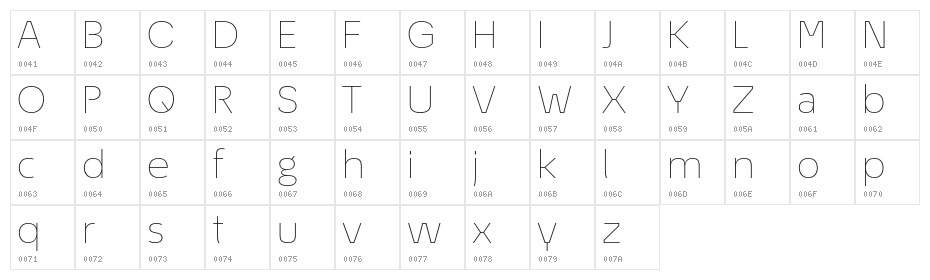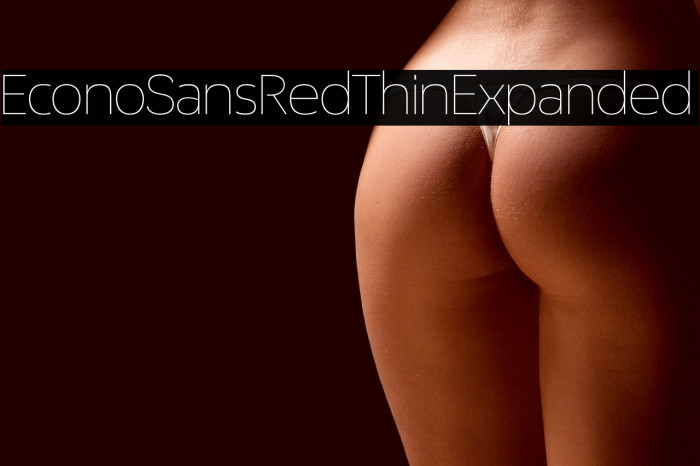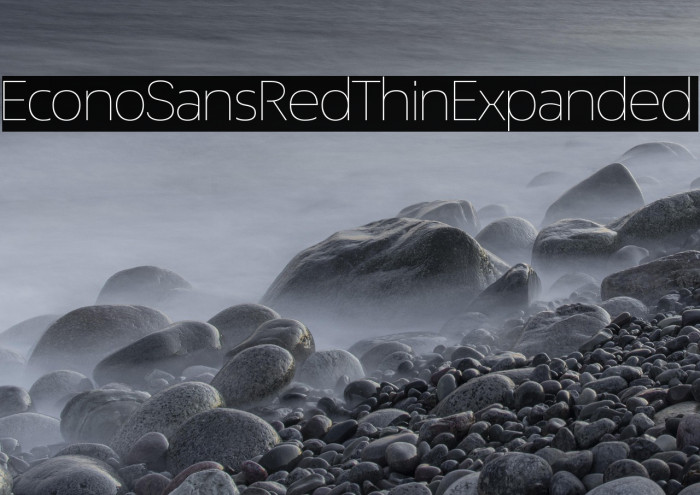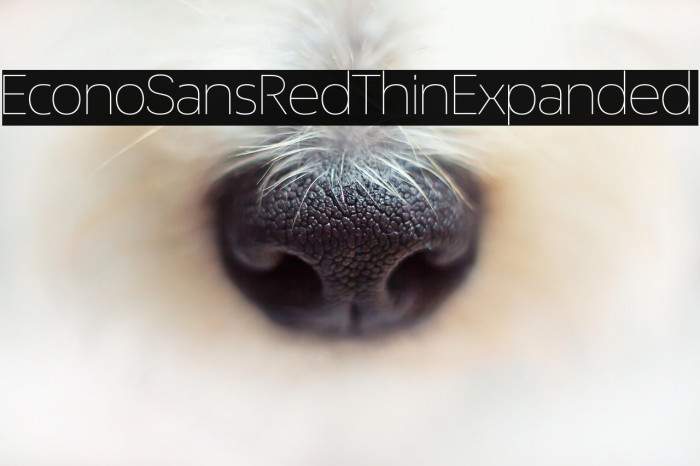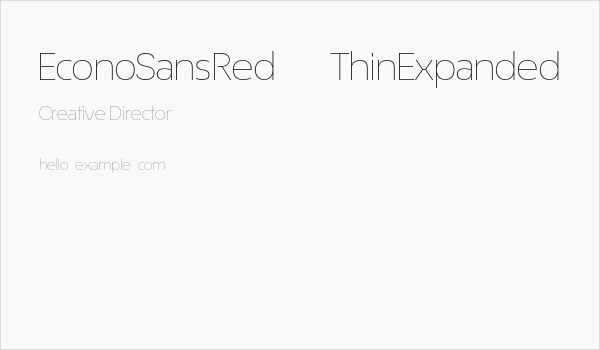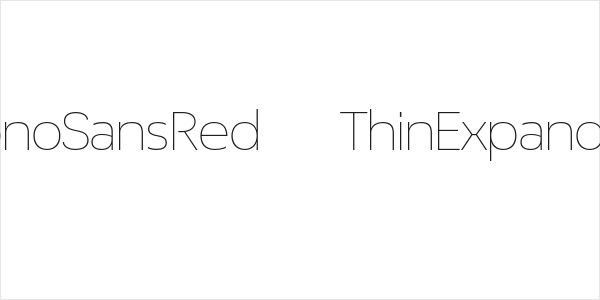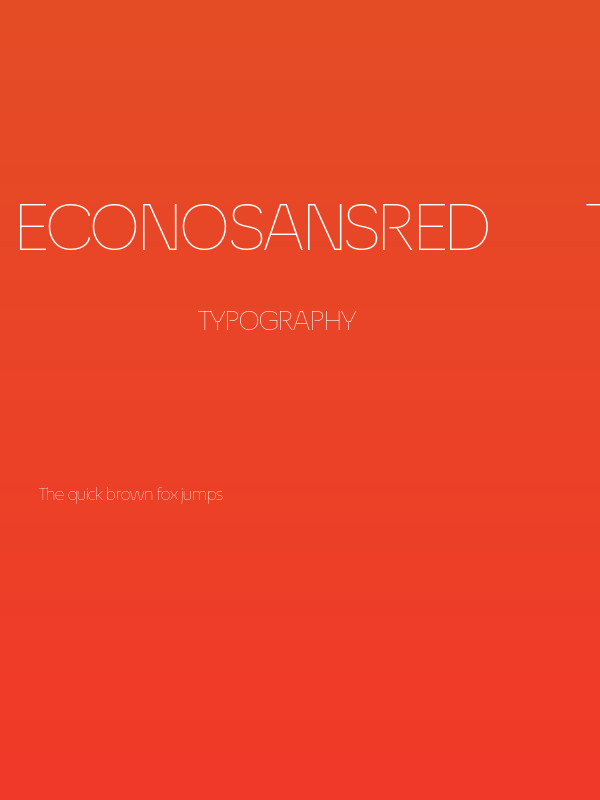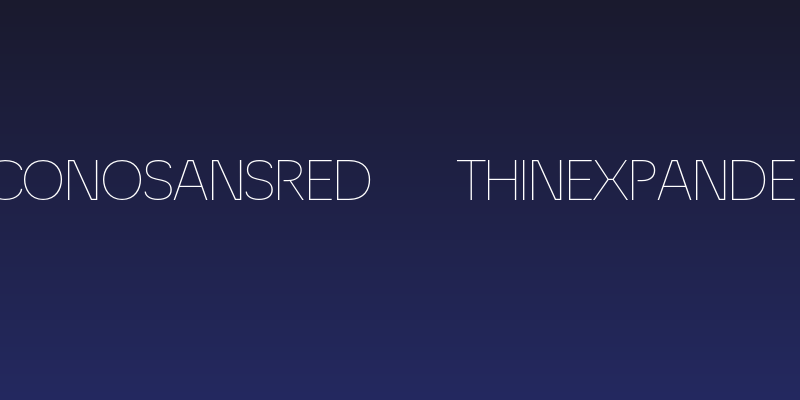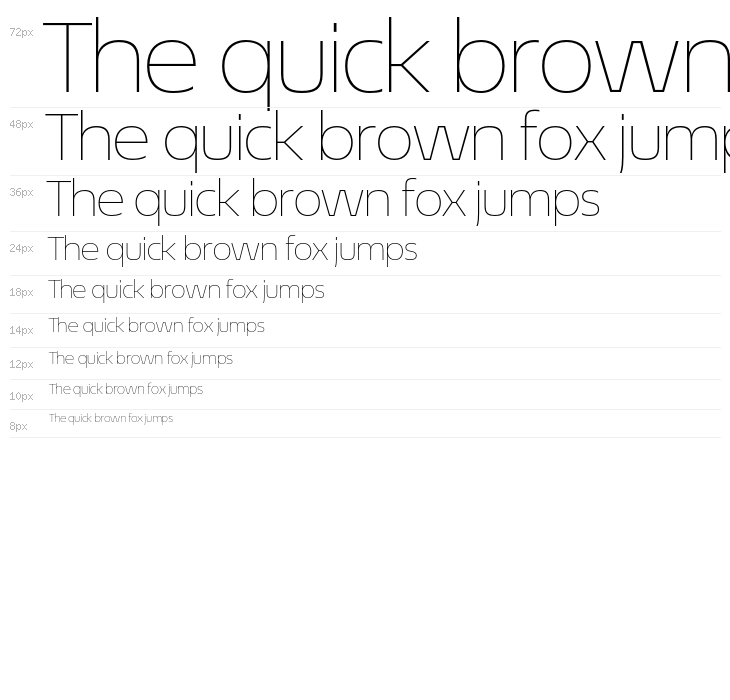
EconoSansRed-33ThinExpanded Font
EconoSansRed-33ThinExpanded Description
This font features a clean and modern sans-serif design with thin strokes and an expanded width. The characters are sleek and minimalistic, emphasizing clarity and readability. The uppercase and lowercase letters maintain a consistent geometric style, with smooth curves and straight lines. The numerals and special characters follow the same design principles, ensuring uniformity across all glyphs. This font's expanded width allows for a spacious and airy appearance, making it suitable for various design applications where a contemporary and open feel is desired.
| Proposed Projects | Ideal for branding, advertising, web design, and editorial layouts where a modern and open aesthetic is required. |